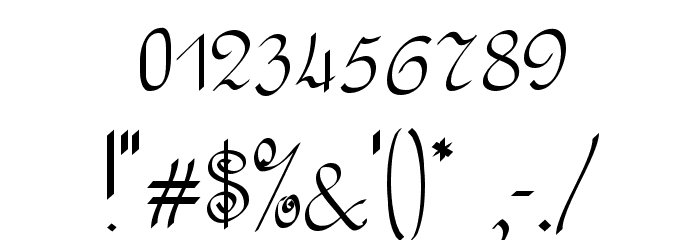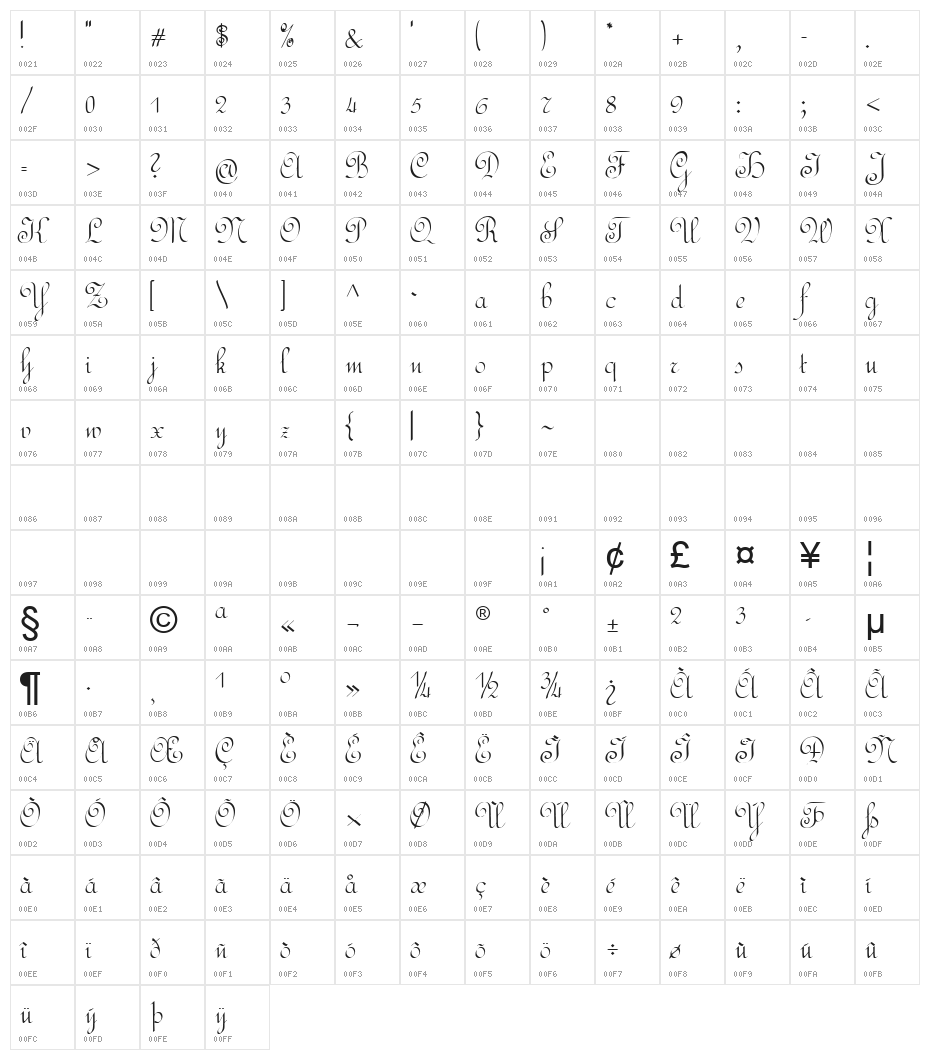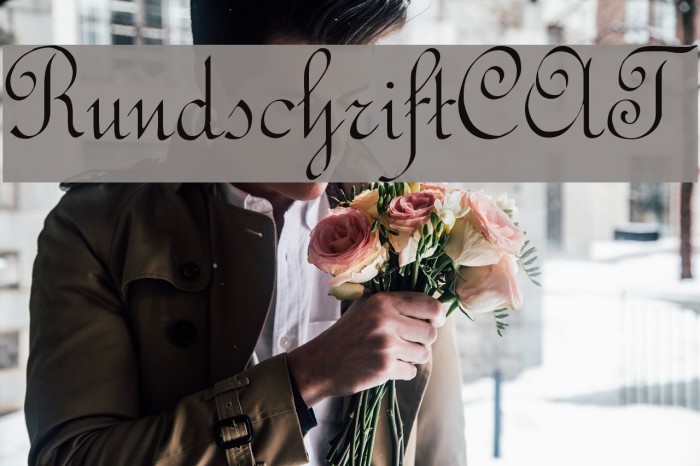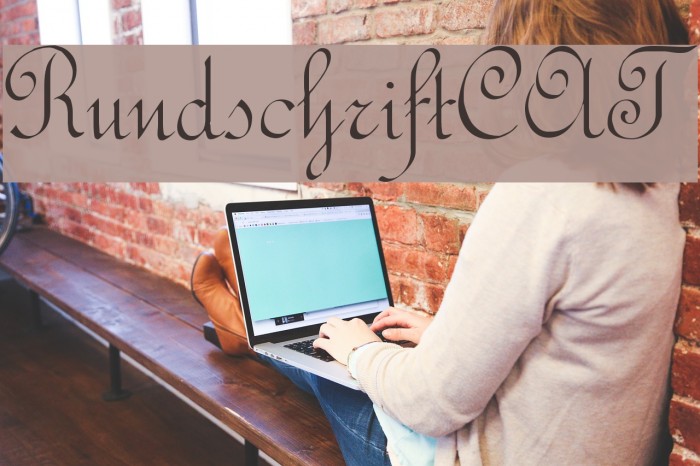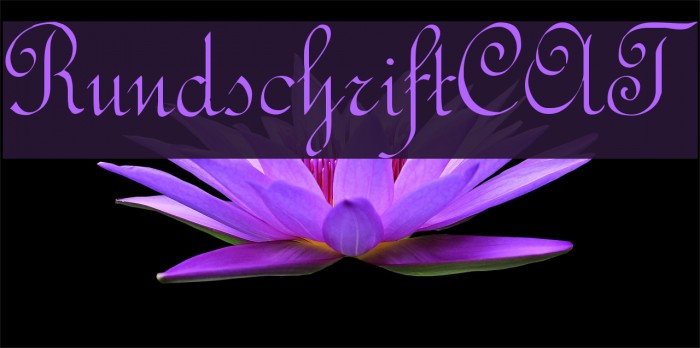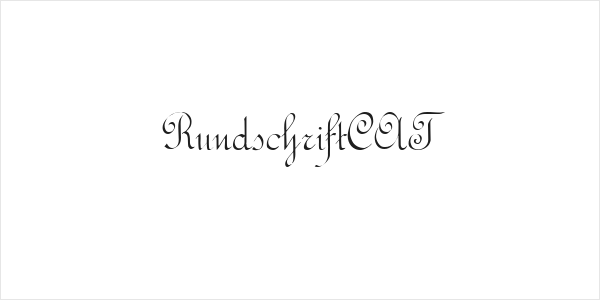
RundschriftCAT Font
RundschriftCAT Description
This font exudes a classic and elegant script style, characterized by its flowing and interconnected letterforms. The uppercase letters are ornate, with intricate loops and swirls that add a touch of sophistication. The lowercase letters maintain a consistent flow, enhancing readability while preserving the decorative nature. The numerals are styled to match the overall aesthetic, with a graceful curvature that complements the letters. Special characters are thoughtfully designed, integrating seamlessly with the rest of the font. This typeface is perfect for projects that require a touch of elegance and refinement, such as wedding invitations, formal event programs, or luxury branding.
Overall StyleClassic
Use CaseLogos, Invitations, Decorative text
Proposed ProjectsIdeal for wedding invitations, luxury branding, formal event programs, and elegant stationery.